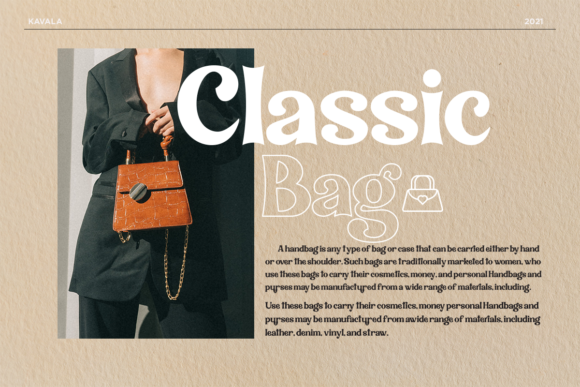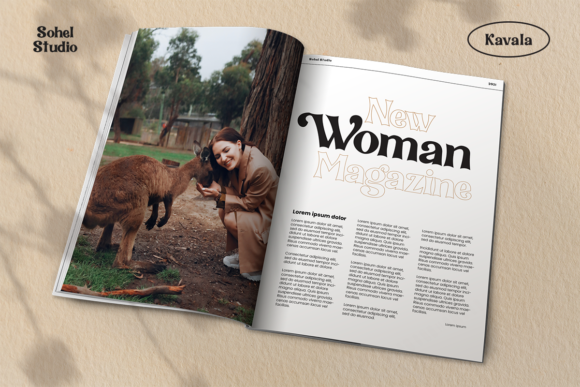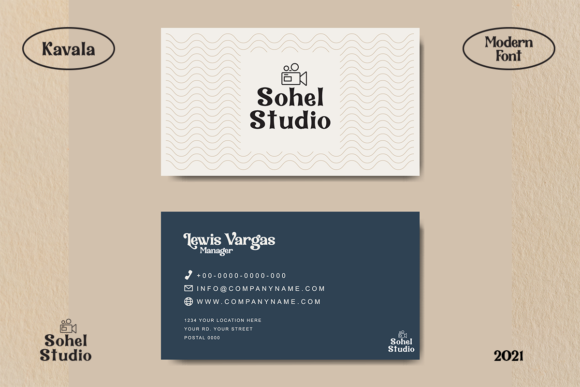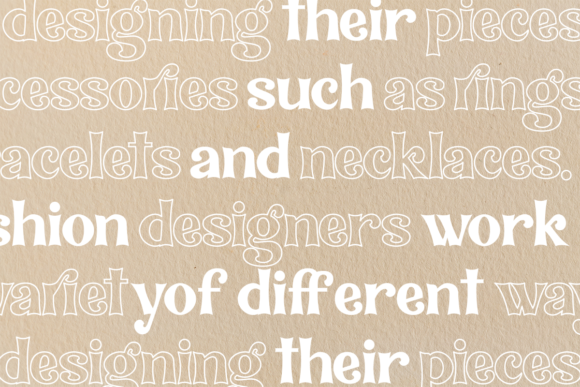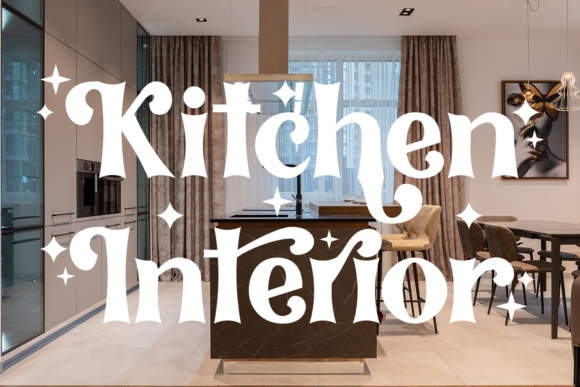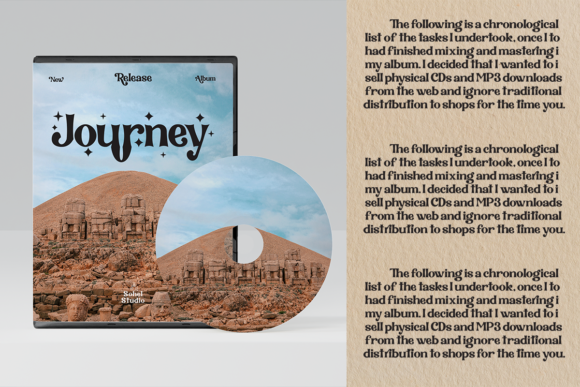
Introduction to Kavala Font
Have you ever stared at a blank canvas, wondering how to bring your creative vision to life? For many designers, finding the perfect font can be the key to unlocking a truly spectacular design. That’s where Kavala Font comes in – a high-quality, uniquely designed serif font that’s sure to elevate your creative project to new heights.
With its PUA encoded features, accessing all the glyphs and swashes is a breeze, allowing you to experiment with different styles and create a truly one-of-a-kind design. Whether you’re working on a project with a transparent background or need a font that can stand out on its own, Kavala Font is a versatile design resource that’s sure to impress.
Key Features of Kavala Font
- High-quality font design ideal for creative projects
- Unique, elegant design that adds a touch of sophistication to any creative project
- Designed to be highly legible and versatile, making it suitable for a wide range of applications
Honest Review: Kavala Font
I recently had the chance to work with the Kavala Font, and I must say it’s been a game-changer for my creative projects. This high-quality font has been a valuable addition to my design resource library.
- ✨ The font’s clean and modern design makes it perfect for a variety of creative projects.
- ✨ The transparent background option gives me the flexibility to use it on any design without worrying about background clutter.
- ⚠️ The font may not be suitable for projects that require a bold or dramatic font style, as it’s more on the subtle side.
Overall, I’m impressed with the Kavala Font. Its high-quality design and versatility make it a valuable addition to any designer’s resource library. While it may not be perfect for every project, it’s definitely worth checking out for your next creative endeavor.
Introduction to Kavala Font
The Kavala Font is a high-quality, versatile design resource ideal for creative projects. Its transparent background makes it perfect for overlaying on images or backgrounds. You can download it for free, making it an excellent addition to your design arsenal.
Tips for Getting the Most Out of Kavala Font
To get the most out of the Kavala Font, experiment with different font sizes, colors, and styles to find the perfect combination for your design. You can also use the font in conjunction with other design elements to create a cohesive look.
Common Use Cases for Kavala Font
The Kavala Font is ideal for use in a variety of creative projects, including branding, advertising, and web design. Its transparent background makes it perfect for overlaying on images or backgrounds, adding a touch of sophistication to your design.